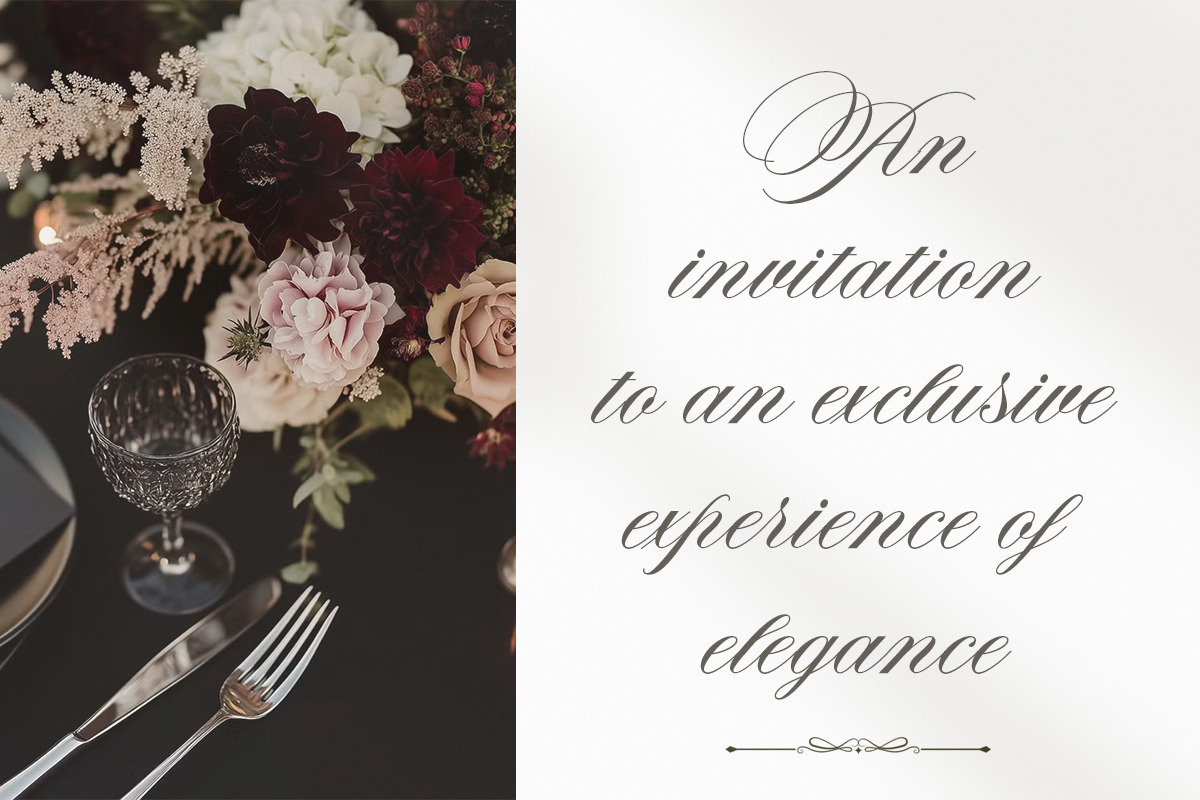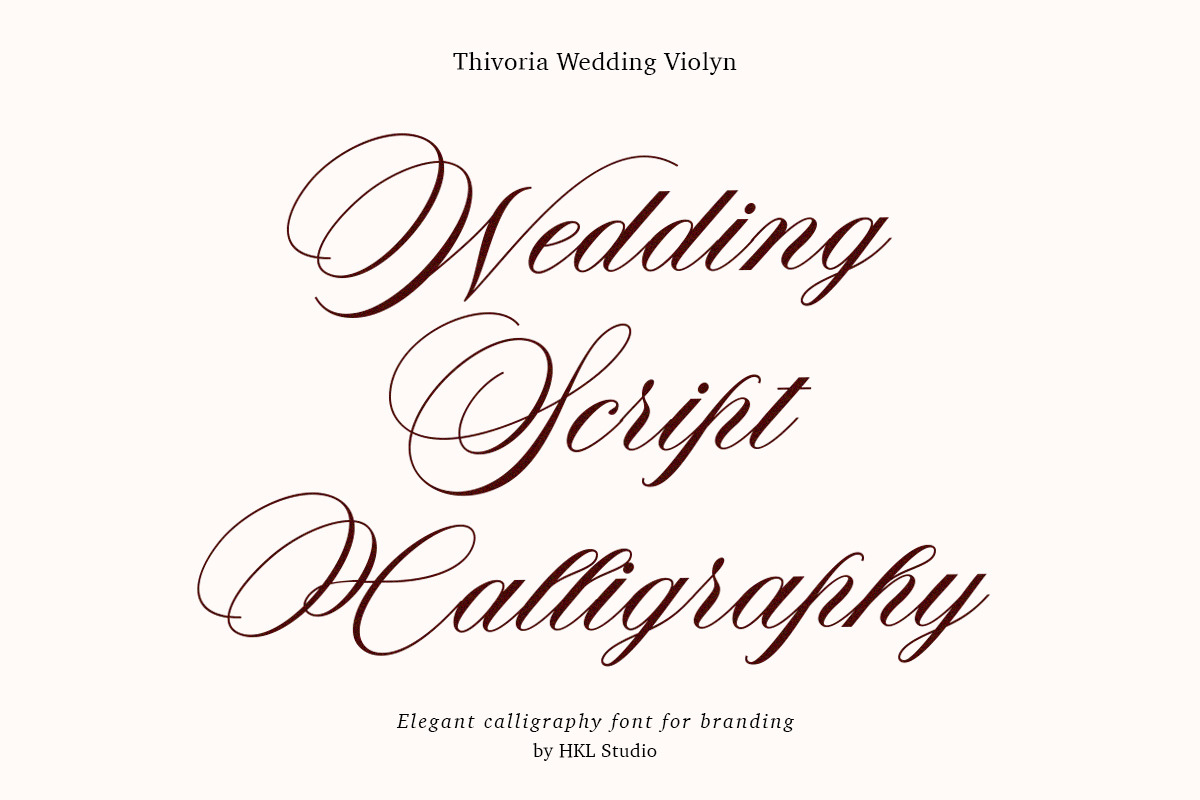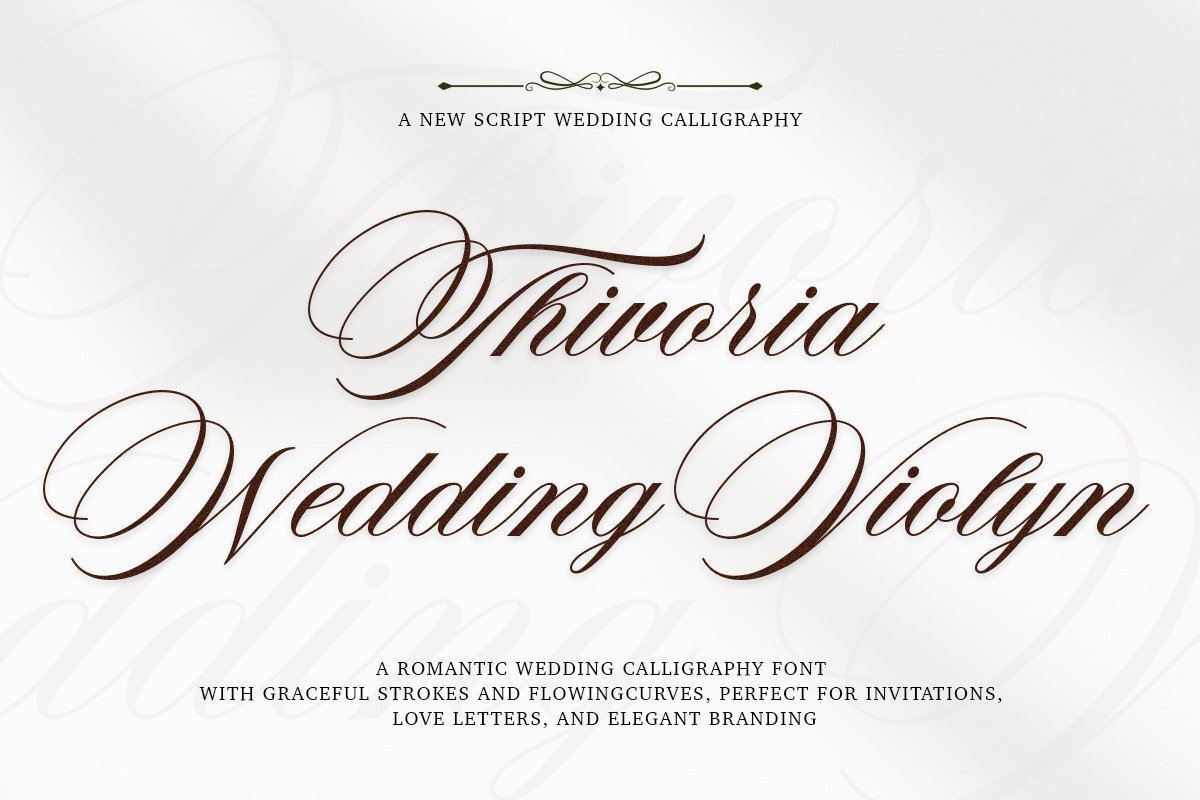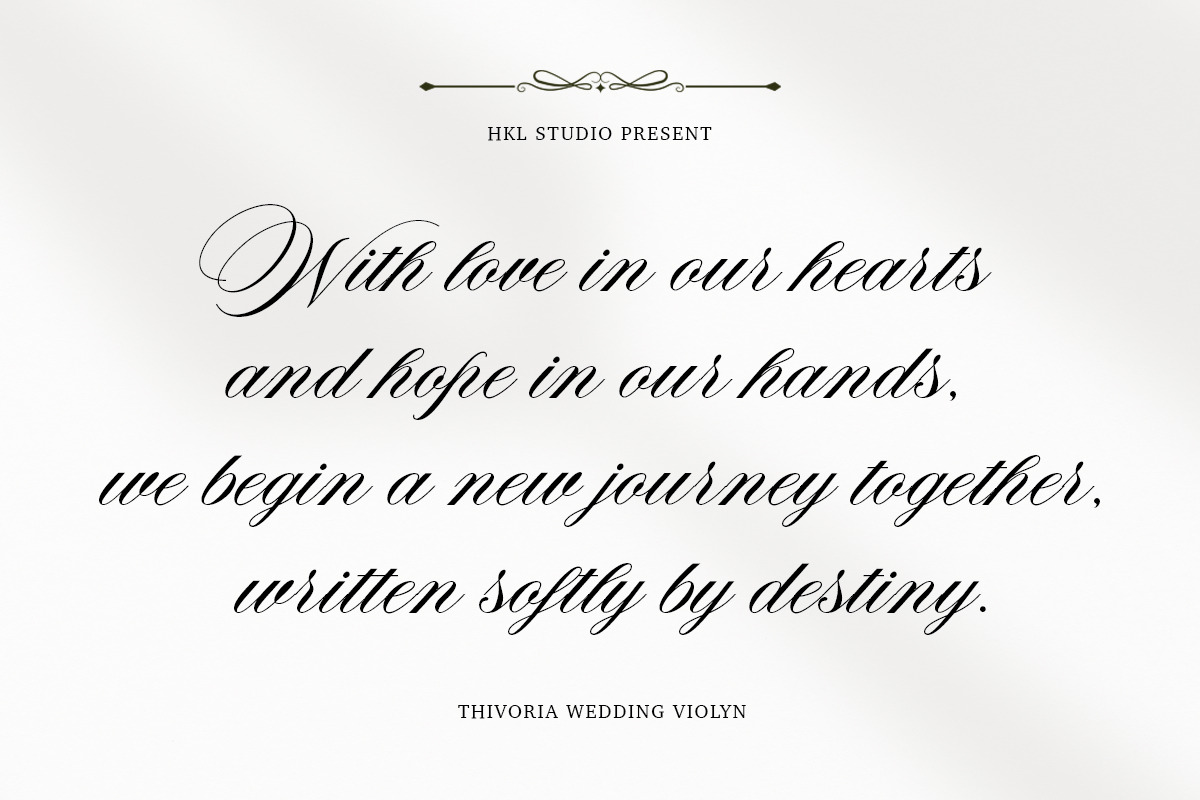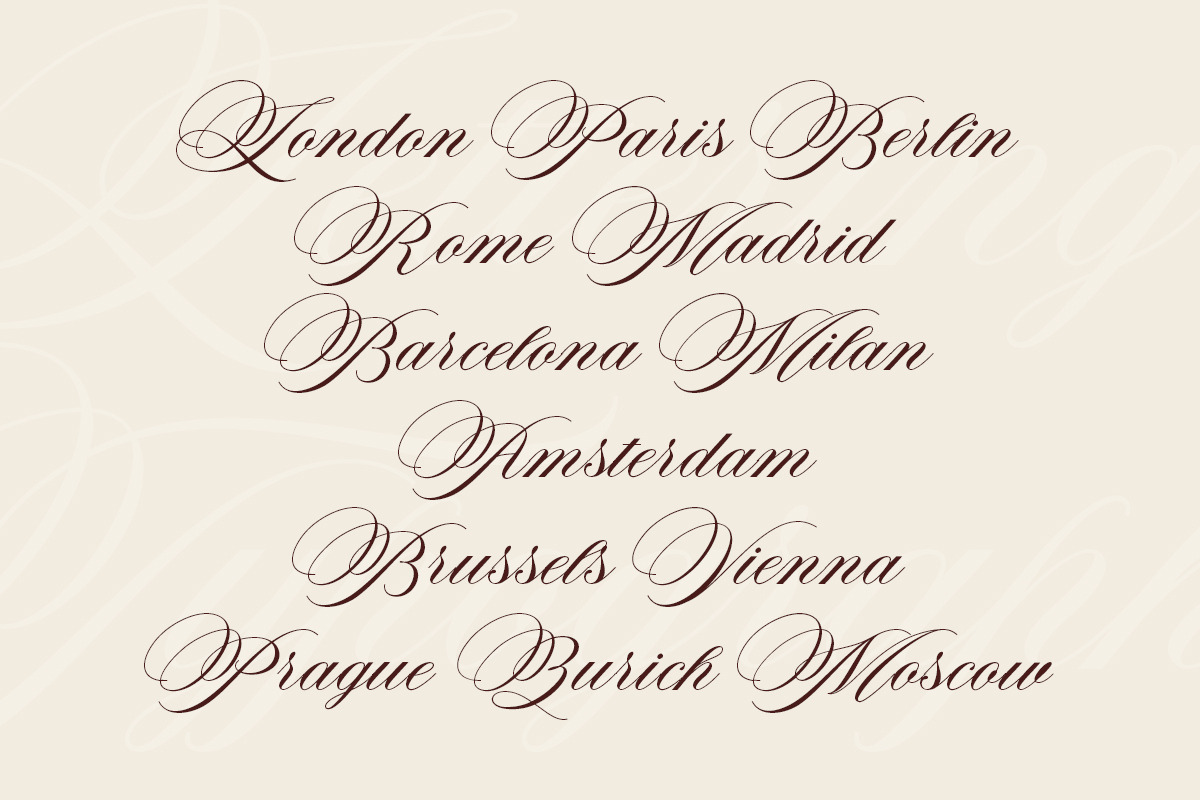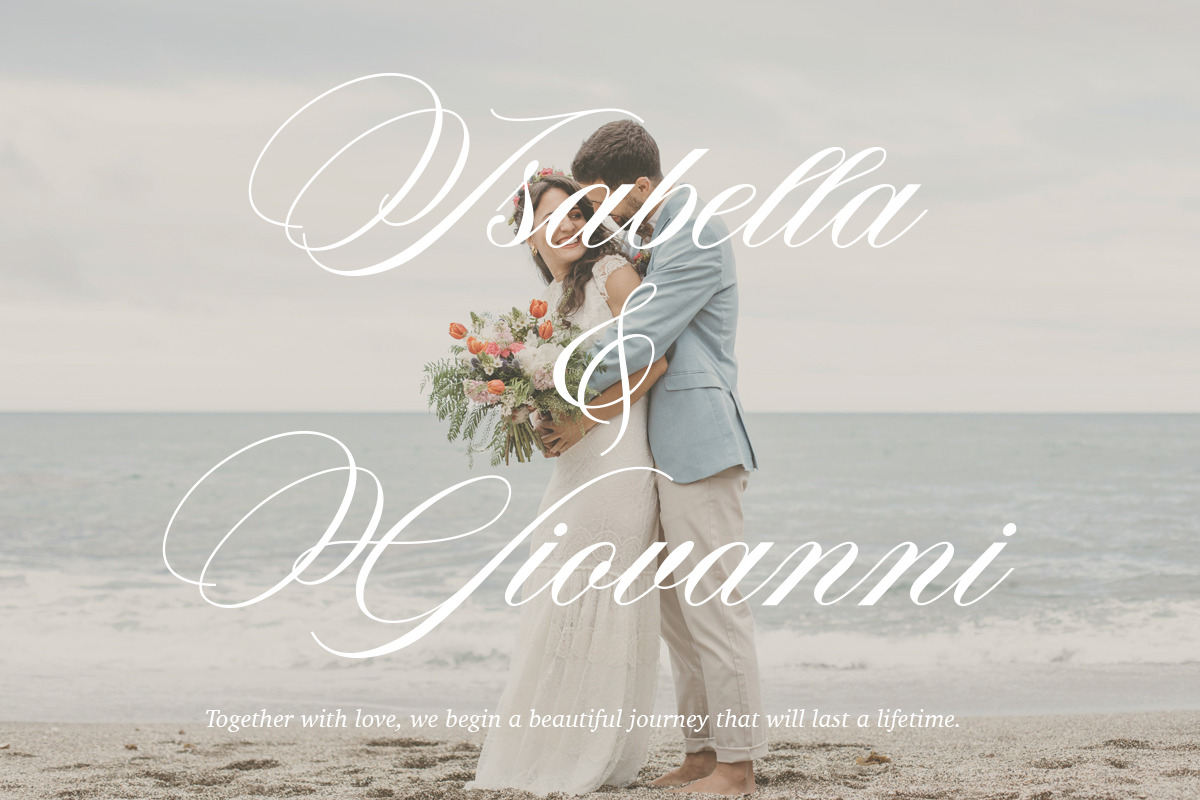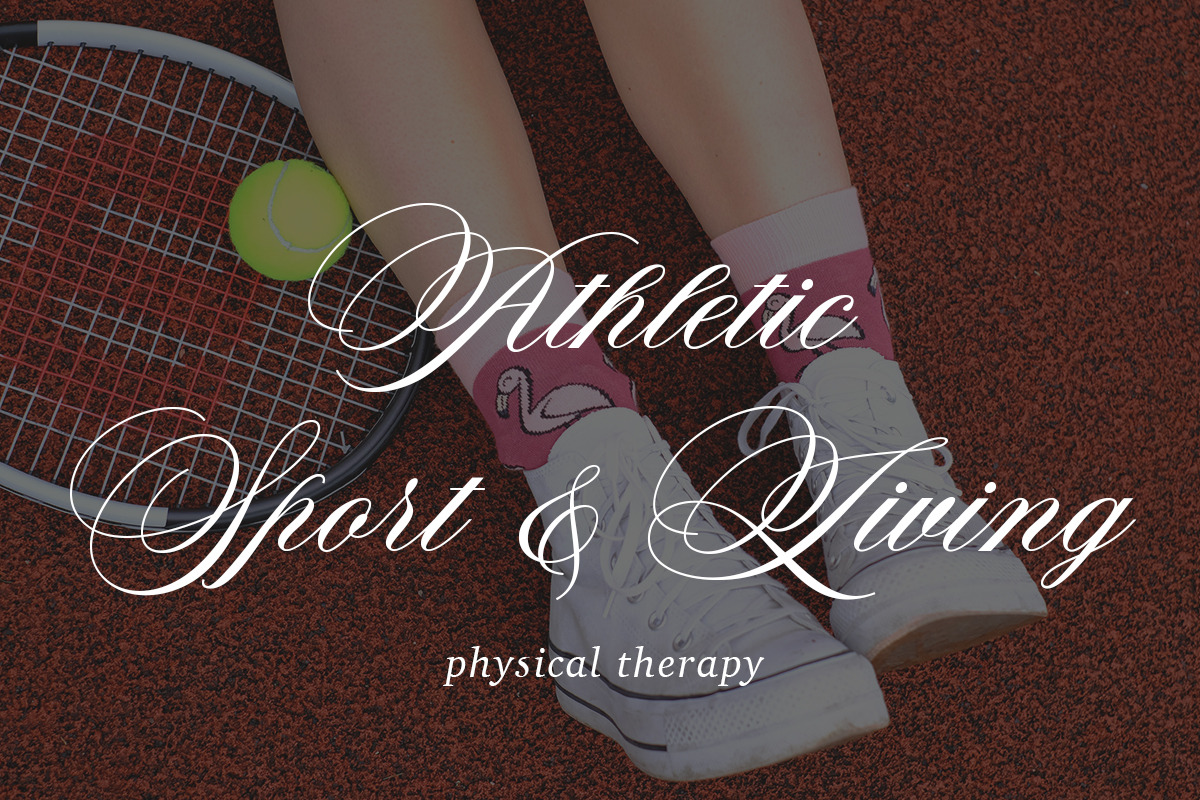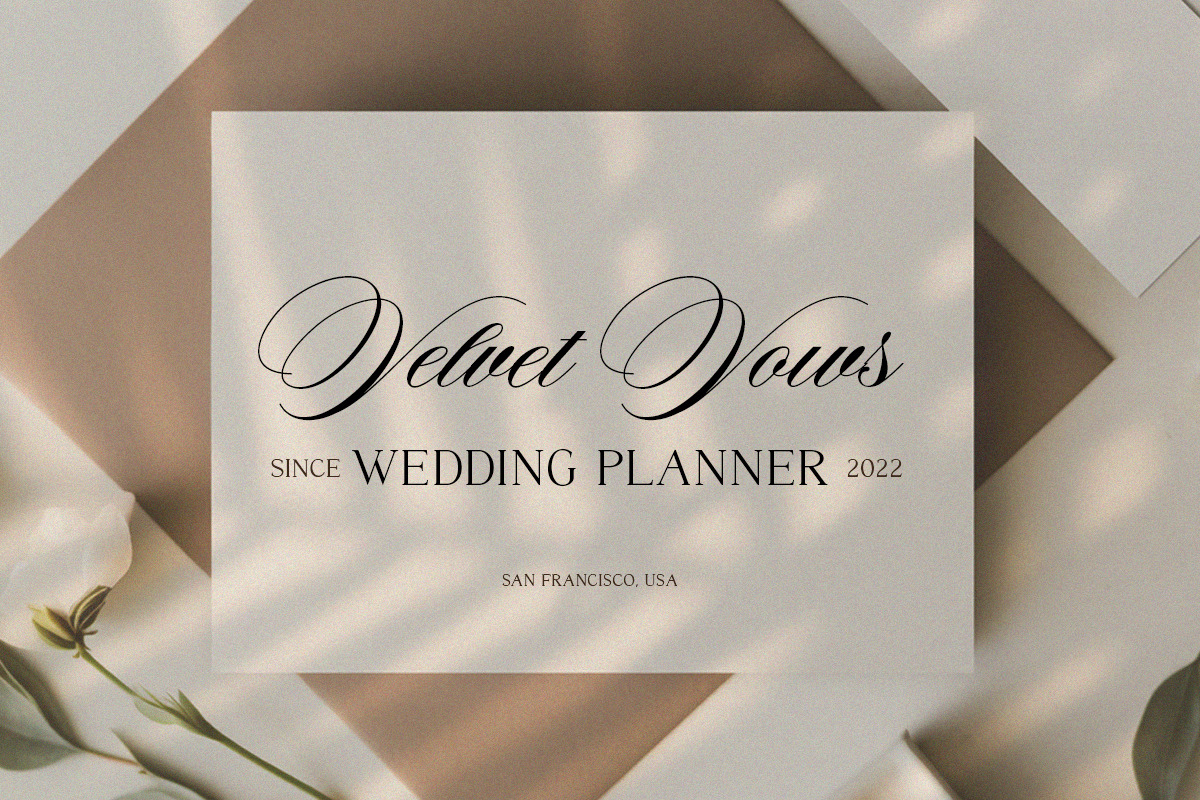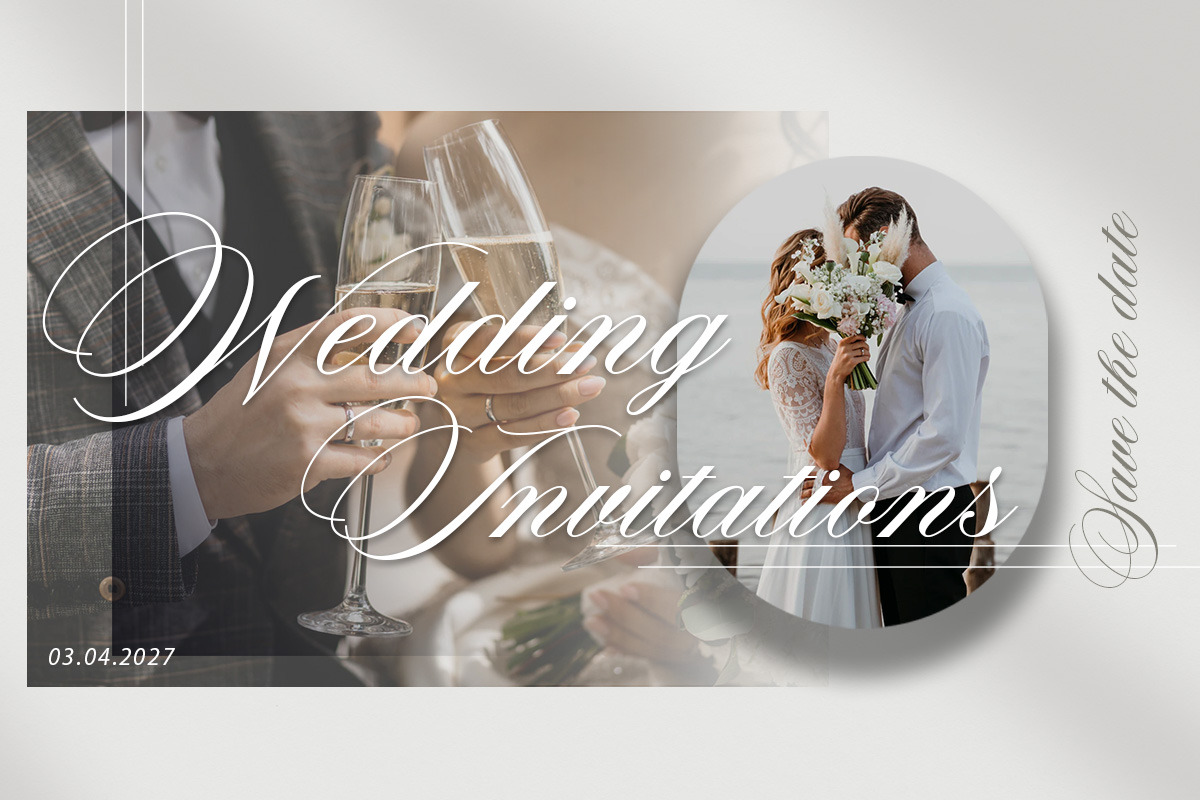
Violyn Wedding Thivoria
Violyn Wedding Thivoria – An Elegant Calligraphy Typeface with Timeless Romance and Modern Sophistication
Violyn Wedding Thivoria is a refined calligraphy typeface that beautifully blends timeless romantic charm with modern luxury. Designed with meticulous attention to detail, each stroke and curve reflects softness, elegance, and a premium handcrafted feel.
This typeface features graceful, flowing letterforms inspired by classic hand-written calligraphy, creating a smooth and harmonious visual rhythm. Violyn Wedding Thivoria is perfectly suited for high-end design projects such as wedding invitations, luxury branding, exclusive logos, premium packaging, fashion editorials, and other creative works that require a romantic yet sophisticated aesthetic.
Violyn Wedding Thivoria includes a rich set of stylistic alternates and custom ligatures, offering flexibility and expressive typographic possibilities. These features allow designers to create unique, elegant, and highly personalized compositions while maintaining a polished and professional appearance.